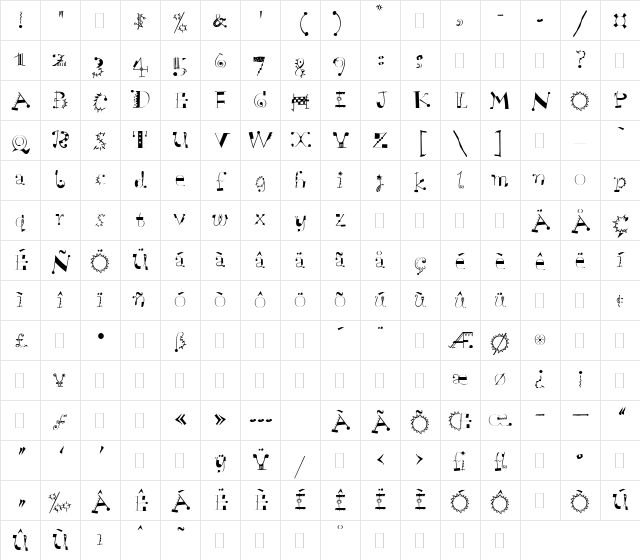
ScruffPlain Roman Free Font
ScruffPlain Roman
Design Context for ScruffPlain
ScruffPlain is a composed and adaptable typeface that performs quietly and consistently across a wide range of design contexts.
Pro Tip: Use ScruffPlain in both headline and body roles to test its range before committing to a single application.